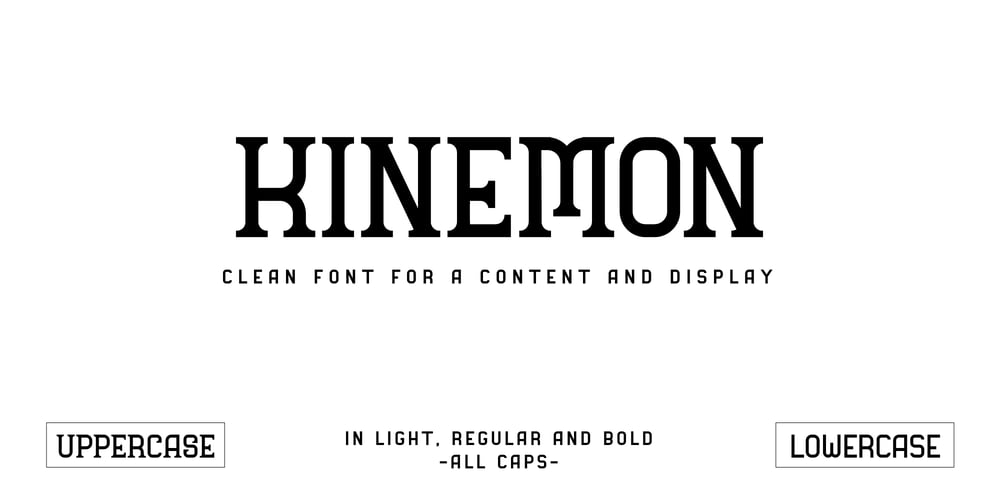
Kinemon Font Family was designed by Agustian Eko Saputro, Aprilia Nurina Putri and published by Mightyfire. Kinemon contains 3 styles and family package options. Kinemon is a font that has modern minimalist looks but still has an uniqueness on it.Look at the letters, each letter has their own characteristic. Firm, clean and modern.Kinemon perfectly use for a magazine, book, headline or even a poster.We have three styles that can cover your needs.We hope and be honored if Kinemon can be the part of your special moment. Thank you! ๐